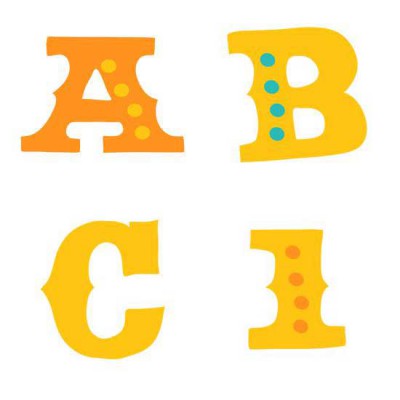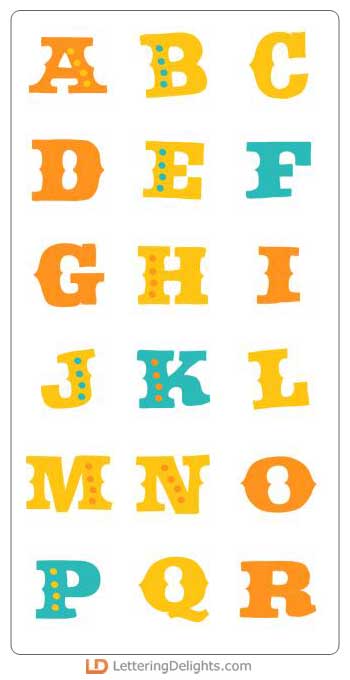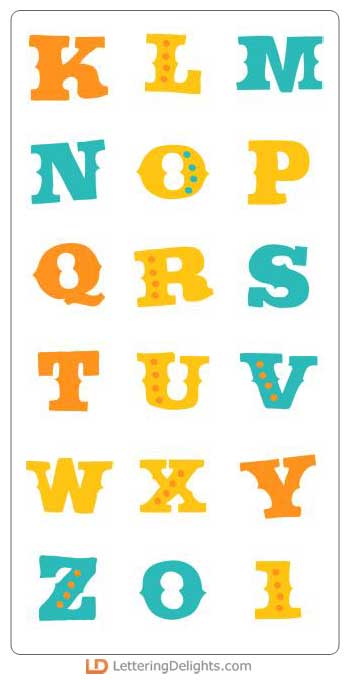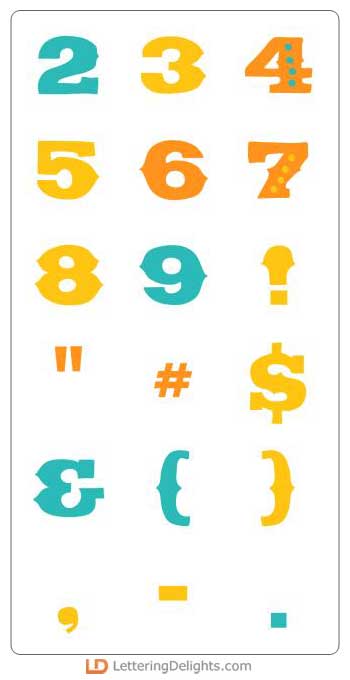
The Summer Treats Alphabet is sunny and bright with a touch of cool blue...just like a perfect summer day. Enjoy your lazy summer days, but be sure to capture those memories...and add a bit of sunshine while you're at it!